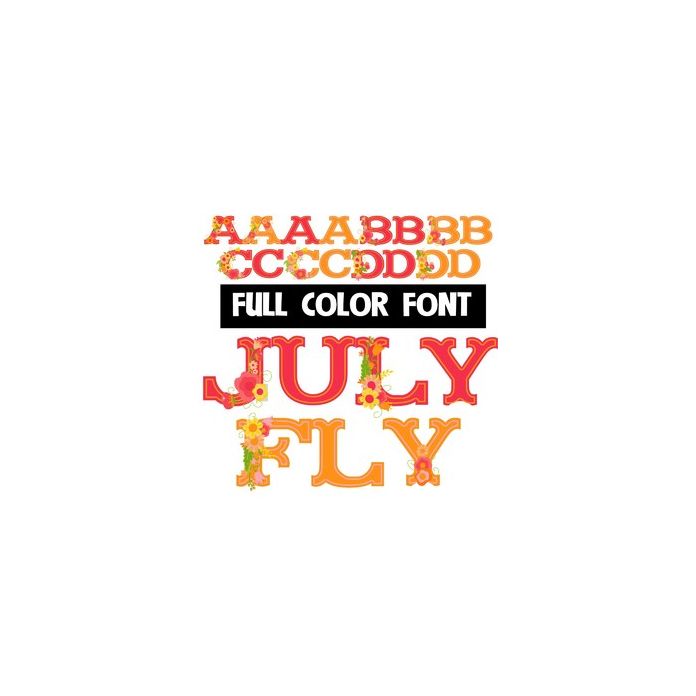
This full-color font features beautiful flowers on the uppercase. There is a secondary upper and lowercase that you can access through Silhouette's glyph map.